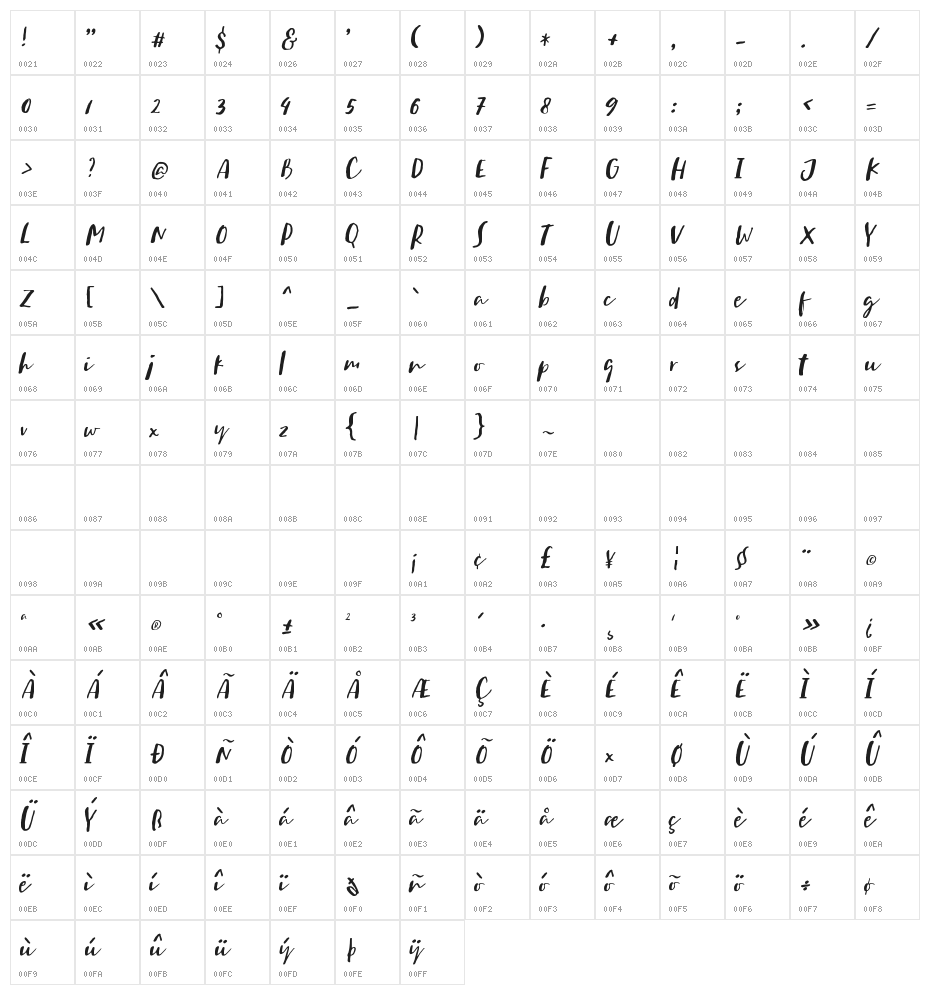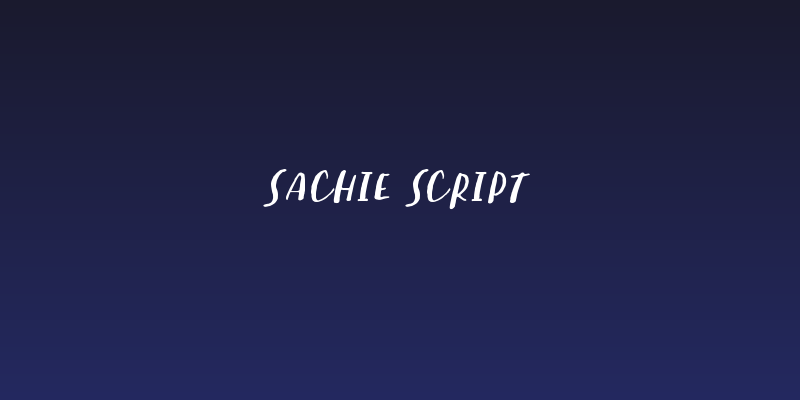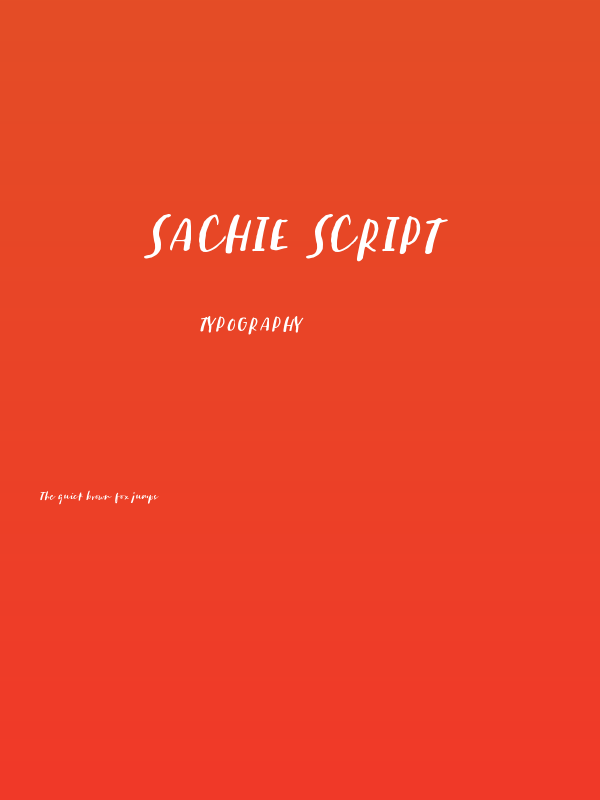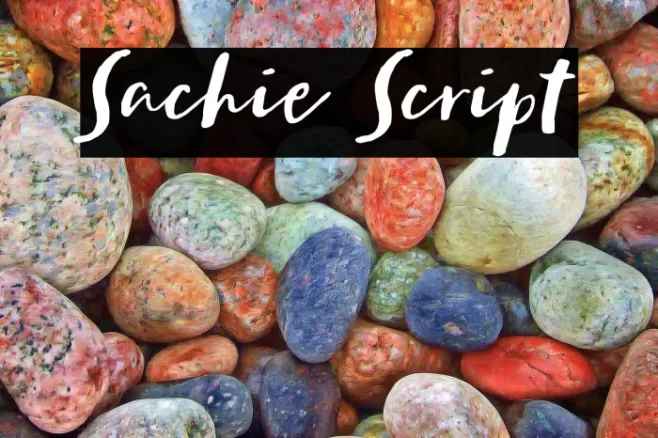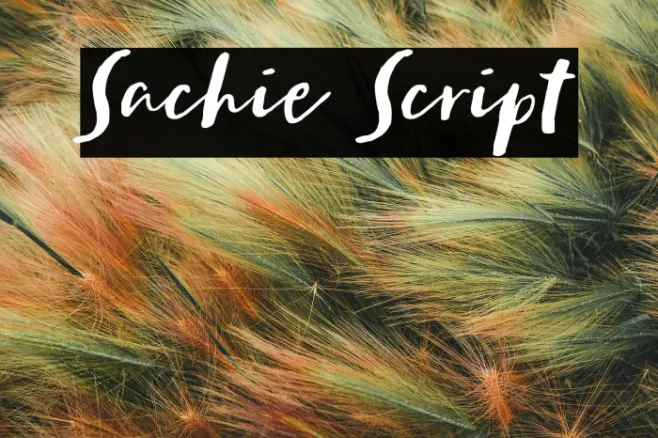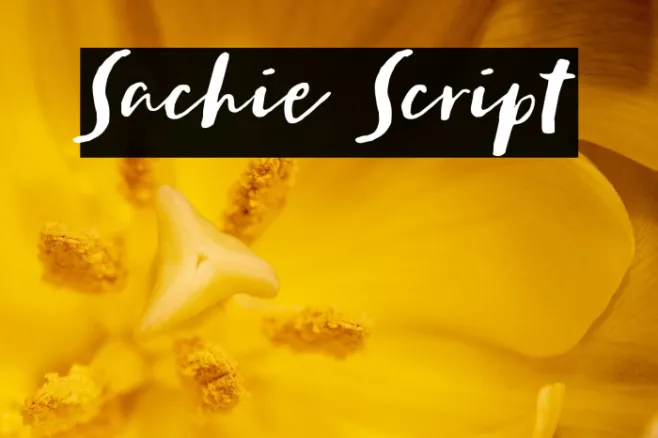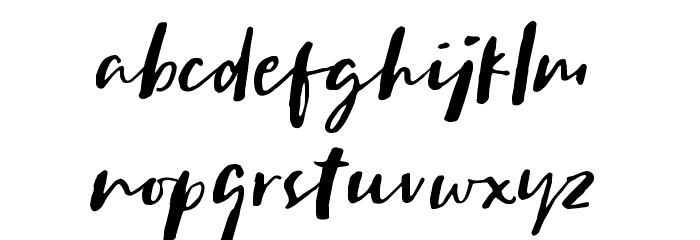
Sachie Script Font
Sachie Script Description
This font exudes a lively and expressive character with its handwritten script style. The letters are fluid and dynamic, showcasing a natural flow that mimics authentic handwriting. Each character is slightly slanted, adding to the casual and informal feel. The strokes vary in thickness, providing a medium contrast that enhances readability while maintaining an artistic flair. The uppercase letters are bold and prominent, while the lowercase letters are more delicate, creating a balanced and harmonious look. The numerals and special characters are consistent with the overall style, ensuring a cohesive appearance across all text elements.
| Proposed Projects | Ideal for creative projects such as invitations, greeting cards, branding, and social media graphics. |